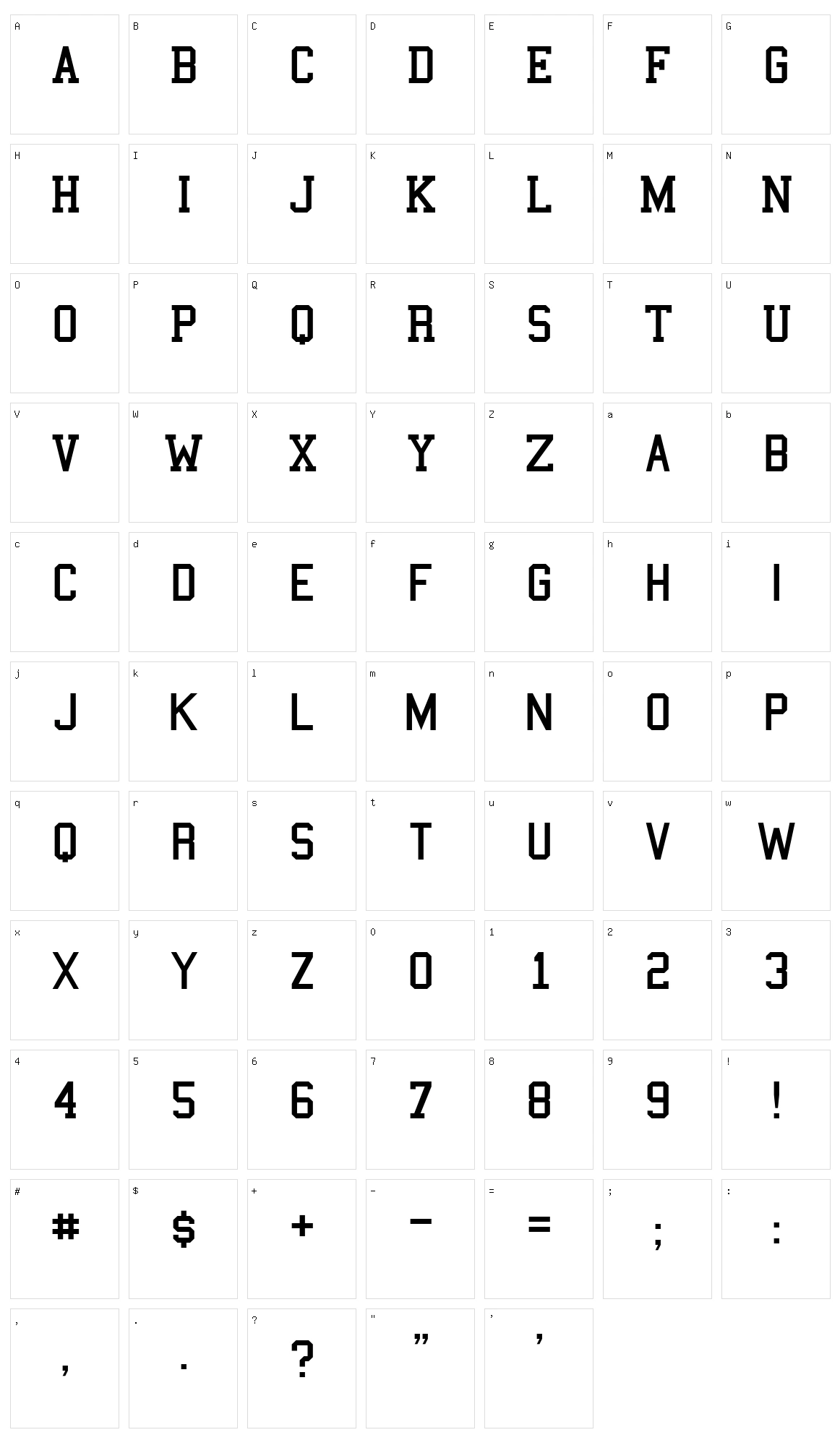
Font: College
Created By: Matthew Welch
About the font:
Not very original, but darn collegiate don't you think. I thought
this would be nice to have in the form of a font and I realized that
in order to really be useful it needed to be made with several
different weights and widths. So I made them. More